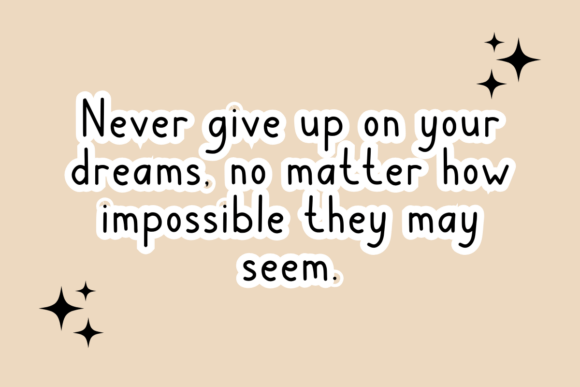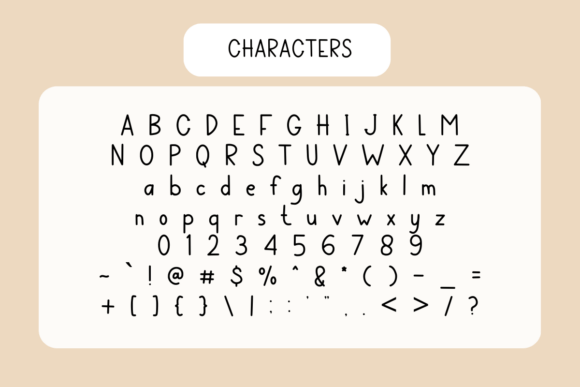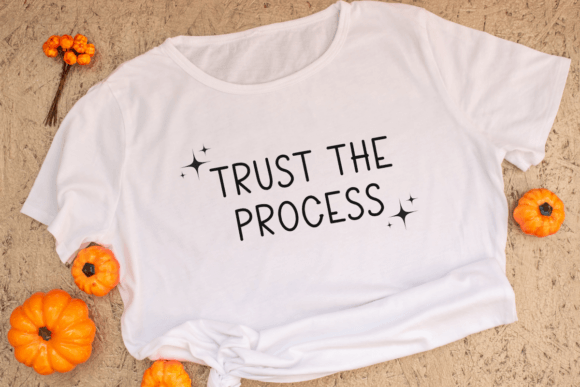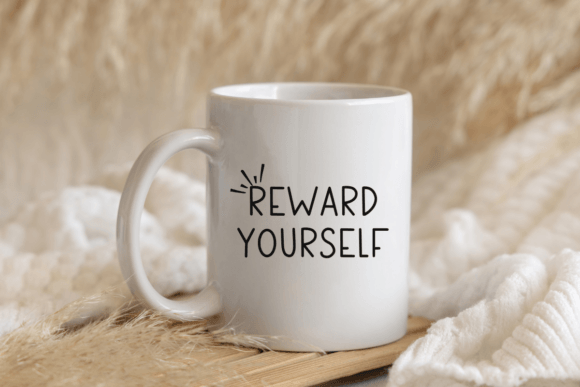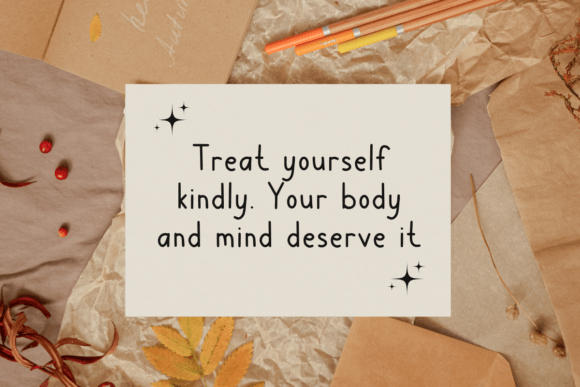
Introduction to New Spruce Font
Do you remember the feeling of rummaging through your old scrapbook, uncovering memories you thought were long forgotten? As you flip through the pages, you’re greeted by a mix of emotions – nostalgia, joy, and a hint of sadness. The way the light reflects off the photographs and the carefully crafted captions transport you back in time. It’s these small moments that make us appreciate the beauty of a well-designed layout, and that’s where the New Spruce Font comes in.
This delightful sans serif font is more than just a design resource; it’s a game-changer for creatives working on their next project. With its unique charm and high quality, it’s no wonder designers are flocking to download the New Spruce Font for their upcoming designs. Whether you’re working on a greeting card, an interior KDP, or a journal, this font adds a touch of personality that’s hard to resist.
Available for free download with a transparent background, the New Spruce Font is a valuable addition to any designer’s toolkit. Its readability and versatility make it an ideal choice for a wide range of creative projects, from scrapbooking to card-making and more.
Key Features of New Spruce Font
- High-quality, professional design suitable for various creative projects, including logos, branding, and marketing materials.
- Includes a transparent background, making it easy to layer over images and other design elements.
- Features a unique, modern aesthetic with a natural, earthy feel, perfect for designers looking for a distinctive design resource.
- Designed at 300 DPI for high-resolution printing and digital use, ensuring crisp, clear typography in a variety of applications.
- Includes a range of characters, including uppercase and lowercase letters, numbers, and punctuation marks, making it a versatile design resource.
Honest Review: New Spruce Font
I recently stumbled upon the New Spruce Font, a new design resource that’s been making waves in the creative project community. As a designer, I was excited to dive in and see what it had to offer.
One of the standout features of the New Spruce Font is its versatility. It comes in a variety of weights, from light to bold, making it perfect for a range of creative projects. I particularly love how the font’s subtle texture adds depth and visual interest to any design. ✨
The font also includes a range of characters, including international characters, making it a great option for designers working on projects with a global audience. And, as a bonus, it’s available for free download, making it a great addition to any designer’s toolkit.
Some limitations of the New Spruce Font include its limited compatibility with older design software. ⚠️ However, this is a minor issue for most designers, and the font’s high quality and transparent background make up for it.
Overall, I’m really impressed with the New Spruce Font. It’s a great addition to any designer’s arsenal, and its versatility and high quality make it a must-have for any creative project.
- Perfect for creative projects requiring a versatile font
- Includes a range of weights and characters
- High-quality and transparent background
How to Use New Spruce Font
To use the New Spruce Font in Canva, upload the font file to your account and apply it to your design. This versatile font is perfect for a variety of projects, from social media graphics to marketing materials.
In Adobe Photoshop or Illustrator, select the New Spruce Font from the font library and apply it to your design. Take advantage of the font’s transparent background to create visually appealing compositions.
When using the New Spruce Font in PowerPoint or Word, simply select the font from the font list and apply it to your text. This high-quality font is perfect for presentations, reports, and other written materials.
To maximize the effectiveness of the New Spruce Font, use it in combination with other design elements that complement its unique style. Experiment with different font sizes, colors, and arrangements to achieve a cohesive look.
The New Spruce Font is ideal for a variety of creative projects, including branding materials, social media graphics, and marketing campaigns. Its unique aesthetic and high-quality design make it a valuable addition to any design resource collection.
Does the New Spruce Font have a transparent background?
Yes, the New Spruce Font comes with a transparent background, making it ideal for use on images and designs with complex backgrounds. This feature allows for a more flexible design experience.
Is the New Spruce Font a high-quality design resource?
Yes, the New Spruce Font is a high-quality design resource that is designed to meet the needs of designers working on creative projects. With its unique style and high-quality formatting, the New Spruce Font is a valuable addition to any design library.